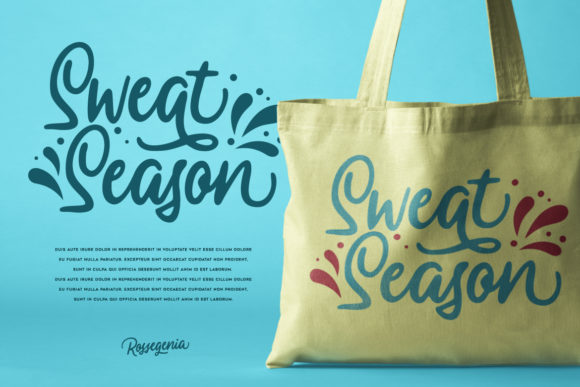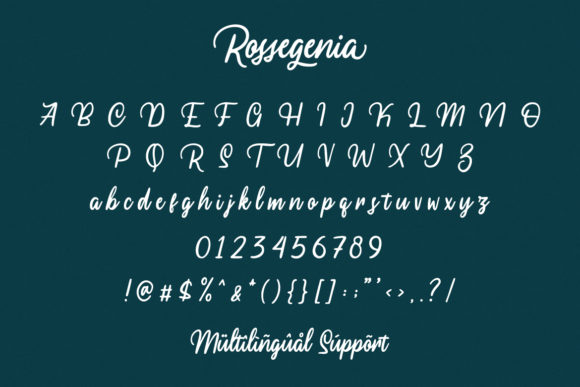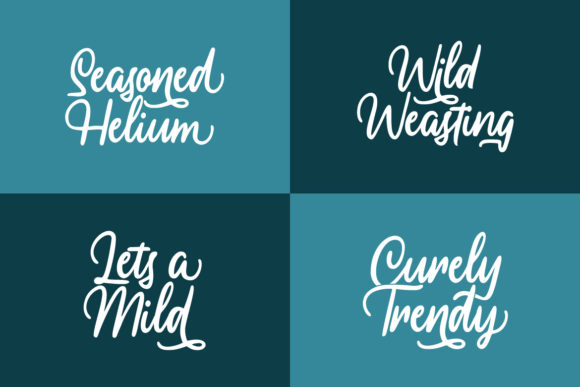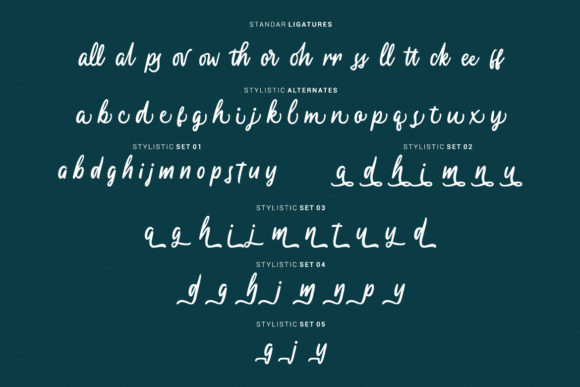
Rossegenia Font
About Rossegenia Font
Rossegenia is an enchanting cursive script font that exudes beauty and elegance. Its graceful strokes and flowing lines elevate a diverse range of design projects to the highest level, making it a versatile choice for various creative endeavors.
The font’s captivating beauty makes it a perfect fit for branding purposes. Whether it’s a luxury brand or a boutique business, Rossegenia adds a touch of sophistication, leaving a lasting impression on customers and clients alike.
For headings and titles, Rossegenia makes a bold statement. Its cursive nature adds a sense of artistry and flair, ensuring that your message stands out with style and grace.
When it comes to wedding designs and invitations, Rossegenia is the epitome of romance. Its delicate and flowing characters evoke a sense of love and charm, making your wedding stationery truly special and memorable.
For personal touches, Rossegenia serves as an excellent choice for signatures. Its unique and handwritten appearance adds a touch of authenticity, making your signature a reflection of your individuality.
Logos crafted with Rossegenia become iconic symbols of elegance and refinement. The font’s artistic flair transforms your logo into a visual representation of your brand’s essence, leaving a lasting imprint in the minds of your audience.
On labels and packaging, Rossegenia exudes a sense of luxury and craftsmanship. Its beautiful cursive style adds value to your products, attracting customers with its exquisite appeal.
Beyond its aesthetic beauty, Rossegenia ensures readability, making it a font that not only looks stunning but also conveys messages with clarity and grace.
In summary, Rossegenia is a font that sets a new standard of beauty and elegance. Its cursive script style elevates a wide range of design projects, from branding and headings to wedding designs and invitations. Whether it’s logos, labels, or personalized signatures, Rossegenia brings a touch of sophistication to every element. Embrace the allure of Rossegenia, and witness how it transforms your design projects into captivating works of art, leaving a lasting impact on all who behold them.